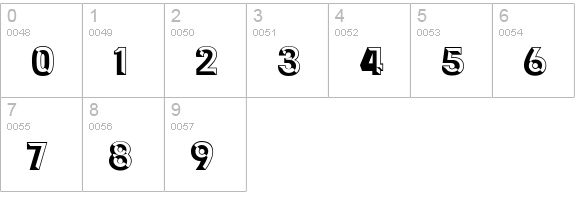
RACE1 Brannt Chiseled NCV Font Details
Introducing RACE1 Brannt Chiseled NCV font, a bold and powerful typeface that will make your designs stand out from the crowd. This font is perfect for creating eye-catching headlines, logos, posters, and any other project that requires a touch of strength and impact. RACE1 Brannt Chiseled NCV font features sharp and angular letterforms that exude a sense of ruggedness and durability. Its chiseled edges give it a unique and memorable look, making it perfect for projects that require a strong and confident aesthetic. Whether you're working on a sports-themed design, a rock band album cover, or a bold advertising campaign, RACE1 Brannt Chiseled NCV font will add a touch of attitude and flair to your work. Its versatility allows it to be used in a variety of design contexts, making it a valuable asset to any designer's toolkit. What's even better is that RACE1 Brannt Chiseled NCV font is available for free download at FontsMarket.com. That's right, you can easily access this powerful typeface without any cost. Simply visit FontsMarket.com and start incorporating this stunning font into your projects today. Don't miss out on the opportunity to add a touch of boldness and impact to your designs. Download RACE1 Brannt Chiseled NCV font for free at FontsMarket.com and take your creations to the next level.